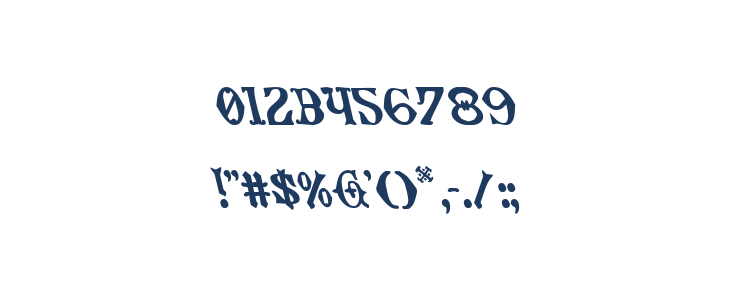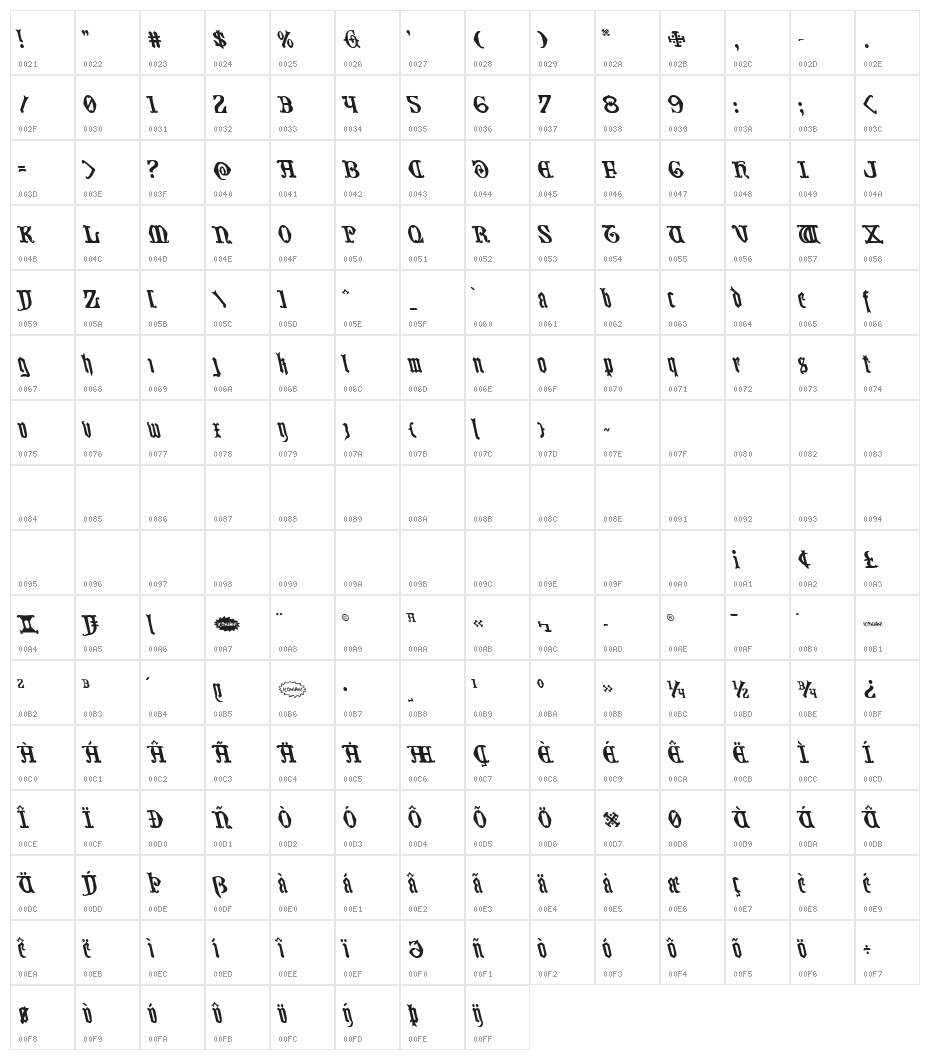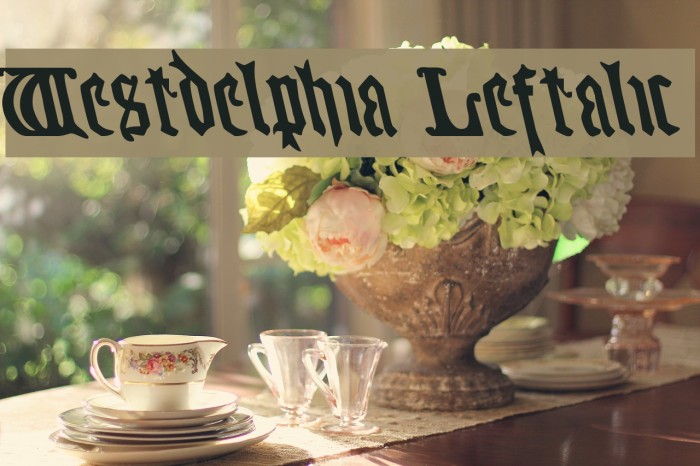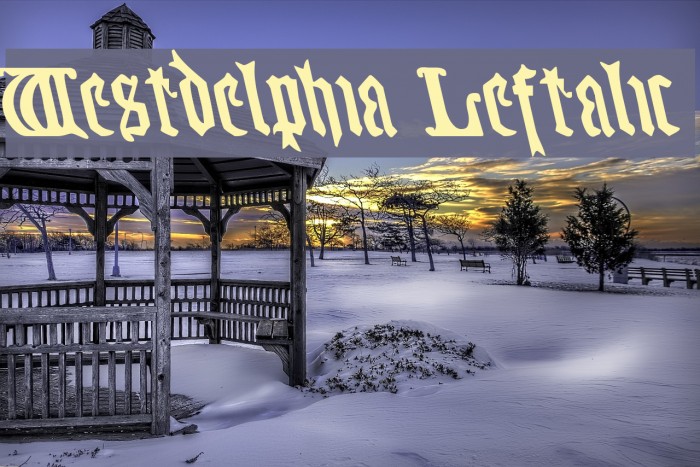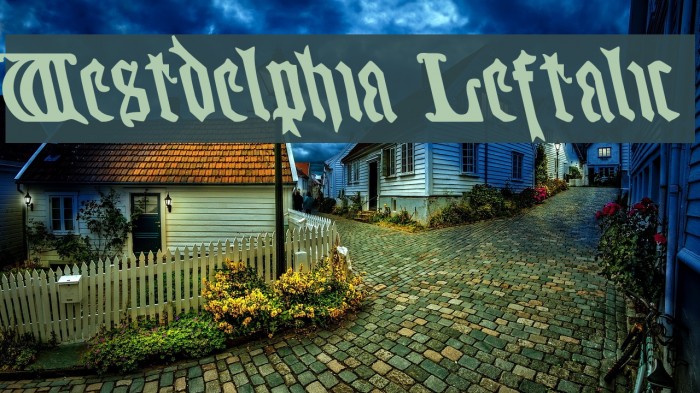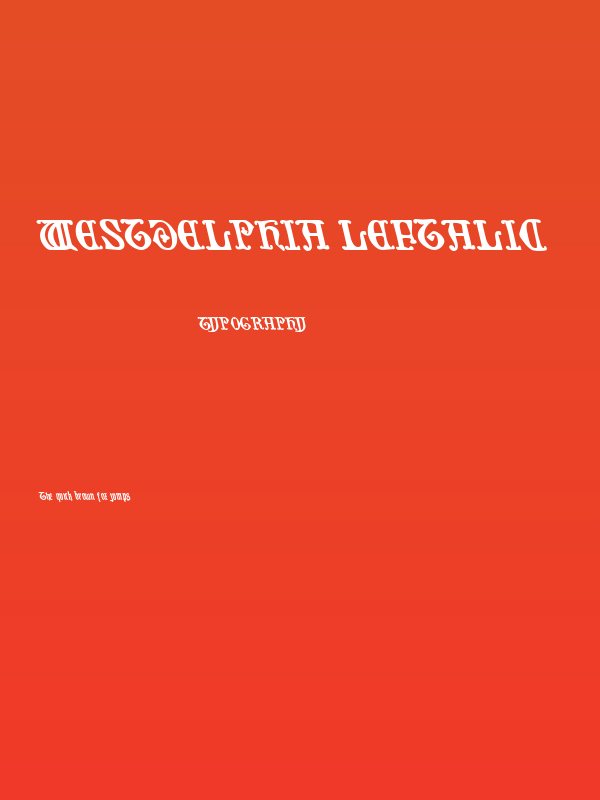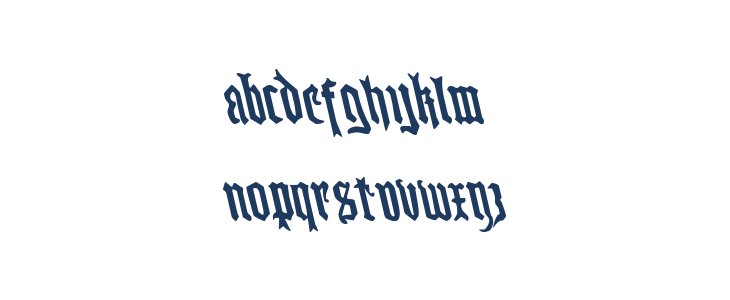
Westdelphia Leftalic Font
Westdelphia Leftalic Description
This font exhibits a bold and dramatic style, characterized by its intricate and ornate letterforms. The strokes are thick and consistent, with a slight slant that adds a dynamic feel. The uppercase letters are particularly elaborate, featuring unique flourishes and decorative elements that give the font a distinct personality. The lowercase letters maintain the same level of detail, ensuring readability while still being visually striking. Numbers and special characters are designed to match the overall aesthetic, making them suitable for a variety of uses. The font's blackletter influence is evident, lending it a historical and traditional vibe, yet the slant introduces a modern twist.
Proposed ProjectsIdeal for branding, posters, and headlines where a dramatic and historical feel is desired.